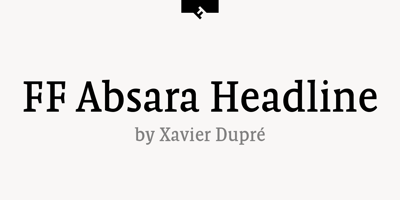
FF Absara Headline
FF Absara Headline font
FF Absara Headline Font Family was designed by Xavier Dupré and published by FontFont. FF Absara Headline contains 4 styles and family package options. French type designer Xavier Dupré created this serif and slab FontFont in 2007. The family contains 4 weights: Regular, Medium, Bold, and Black and is ideally suited for editorial and publishing. FF Absara Headline provides advanced typographical support with features such as ligatures, alternate characters, case-sensitive forms, fractions, and super- and subscript characters. It comes with a complete range of figure set options – oldstyle and lining figures, each in tabular and proportional widths. This FontFont is a member of the FF Absara super family, which also includes FF Absara, FF Absara Sans, and FF Absara Sans Headline.